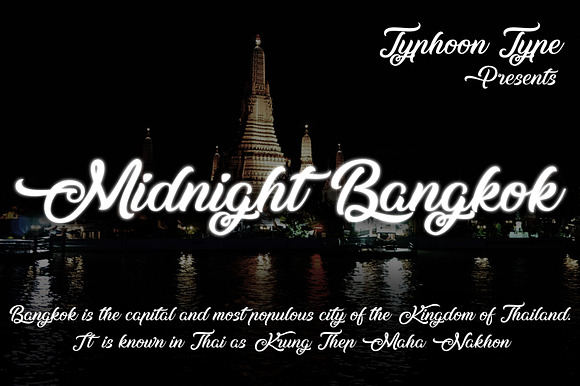
Midnight Bangkok font
Midnight Bangkok This font perfect for logos, name tag, advertising, product packaging, clothing, social media & greeting cards.
Midnight Bangkok font by TyphoonStudio fits naturally into Branding, posters, packaging, typography.